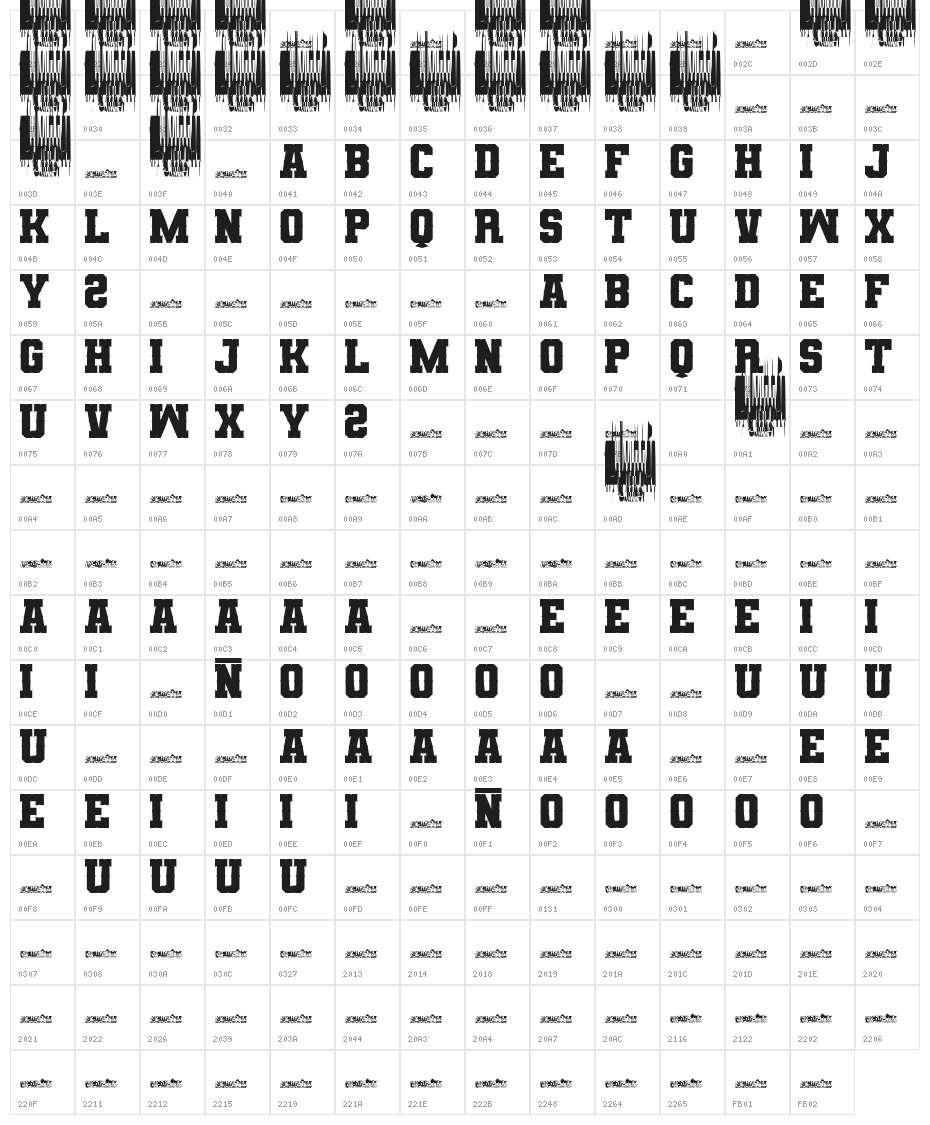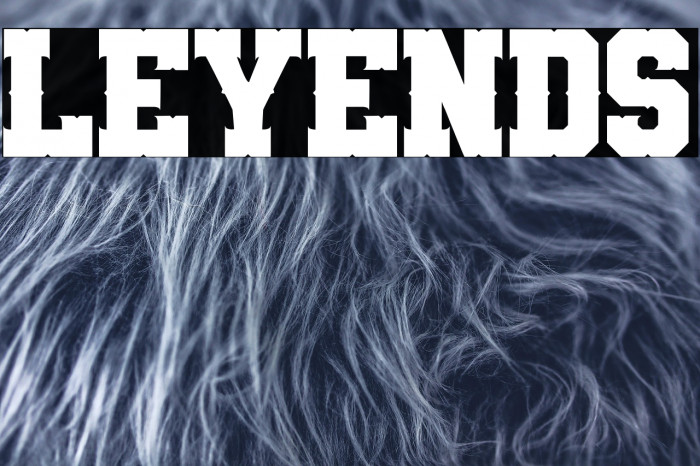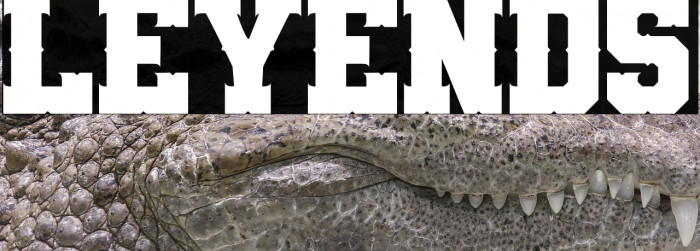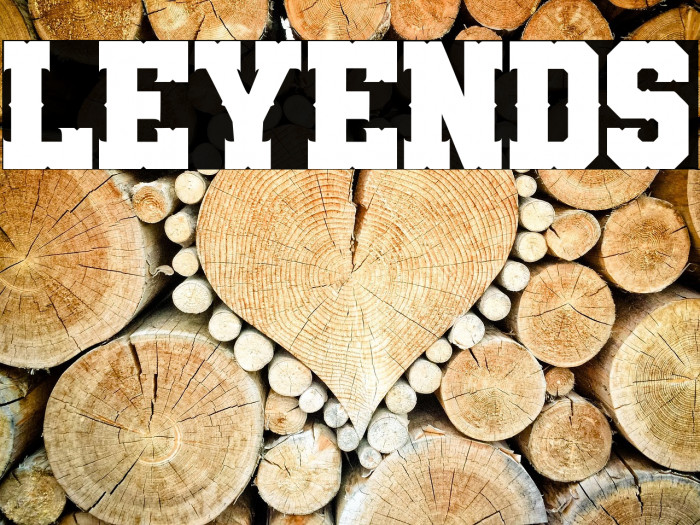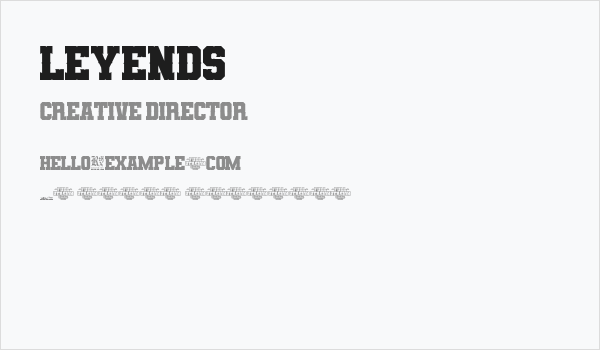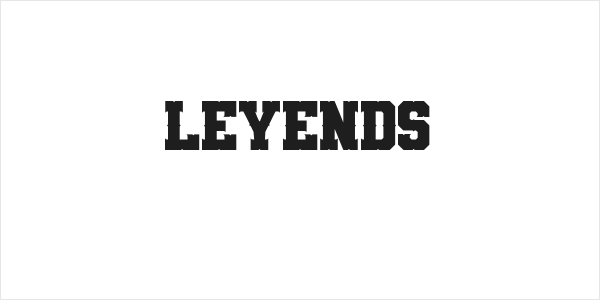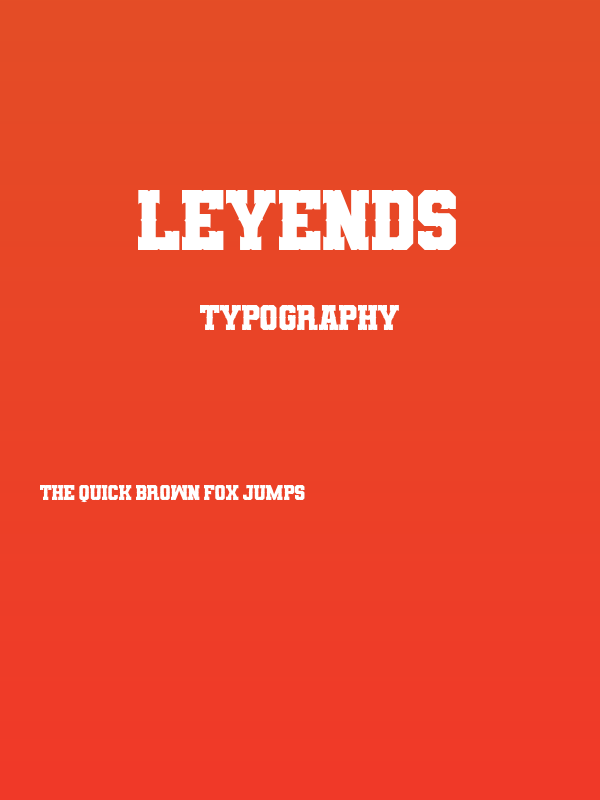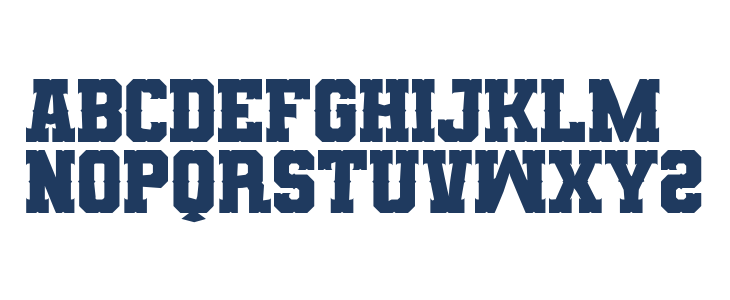
Leyends Font
Leyends Description
This font features a bold, impactful design with strong, angular serifs and a robust presence. The characters are uniformly wide, creating a sense of stability and strength. The uppercase letters are particularly striking, with a blocky, geometric style that commands attention. The font's design is reminiscent of vintage Western typography, often seen in old posters and signage. The boldness of the characters is complemented by a medium contrast in stroke thickness, adding to its legibility and visual appeal. This font is ideal for projects that require a strong, authoritative look.
Overall StyleVintage
Proposed ProjectsPerfect for posters, signage, branding, and any project needing a strong, vintage aesthetic.